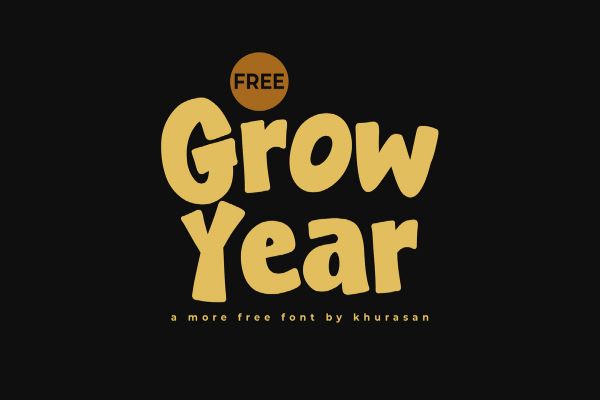
Grow Year Font
Grow Year by syaf rizal (Khurasan Studio) is a free bold decorative font with a cheerful, expressive personality — its lettering shaped by the energy of summer aesthetics and a contemporary graphic sensibility that feels as comfortable on a product label as it does on a social media graphic or poster. A font from a designer well known for generously sharing high-quality display type with the design community.